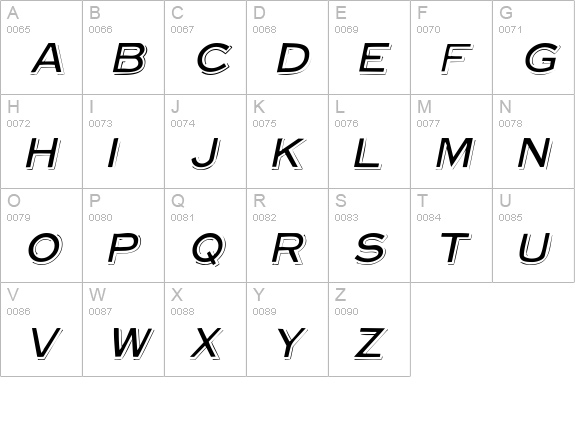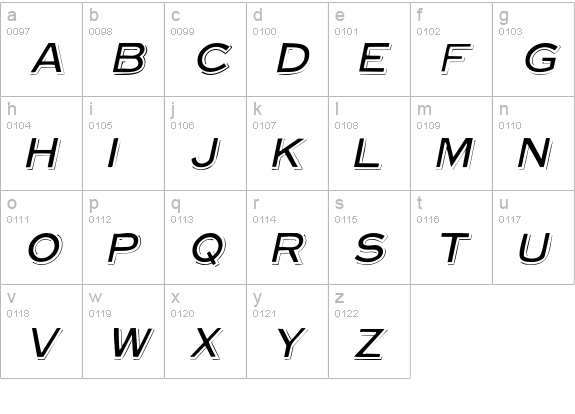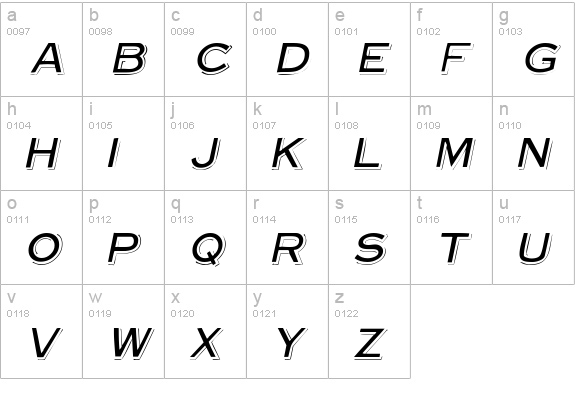
VinylCapsHeavy Italic Font Details
VinylCapsHeavy Italic is a distinctive, italic variant in the VinylCapsHeavy typeface family \xE2\x80\x94 well suited to design and typography projects.
Introducing VinylCapsHeavy Italic, a stunning and bold font that exudes a sense of power and sophistication. Its carefully crafted design showcases strong, heavy letterforms with a unique italic slant, adding an extra touch of elegance to any project. This font is perfect for making a bold statement, whether it's for a logo, headline, or any other creative endeavor that requires a strong typographic presence. Its distinctively thick strokes and sharp angles make it stand out from the crowd, ensuring that your message will be noticed and remembered. But what makes VinylCapsHeavy Italic even more remarkable is that it is available for free! That's right, this incredible font can be downloaded at no cost from FontsMarket.com. This means that you can add a touch of sophistication to your designs without breaking the bank. With VinylCapsHeavy Italic, you have the power to transform your creations into something truly extraordinary. Its bold and unique aesthetic will captivate your audience and leave a lasting impression. So why wait? Download VinylCapsHeavy Italic today and let your creativity soar to new heights.